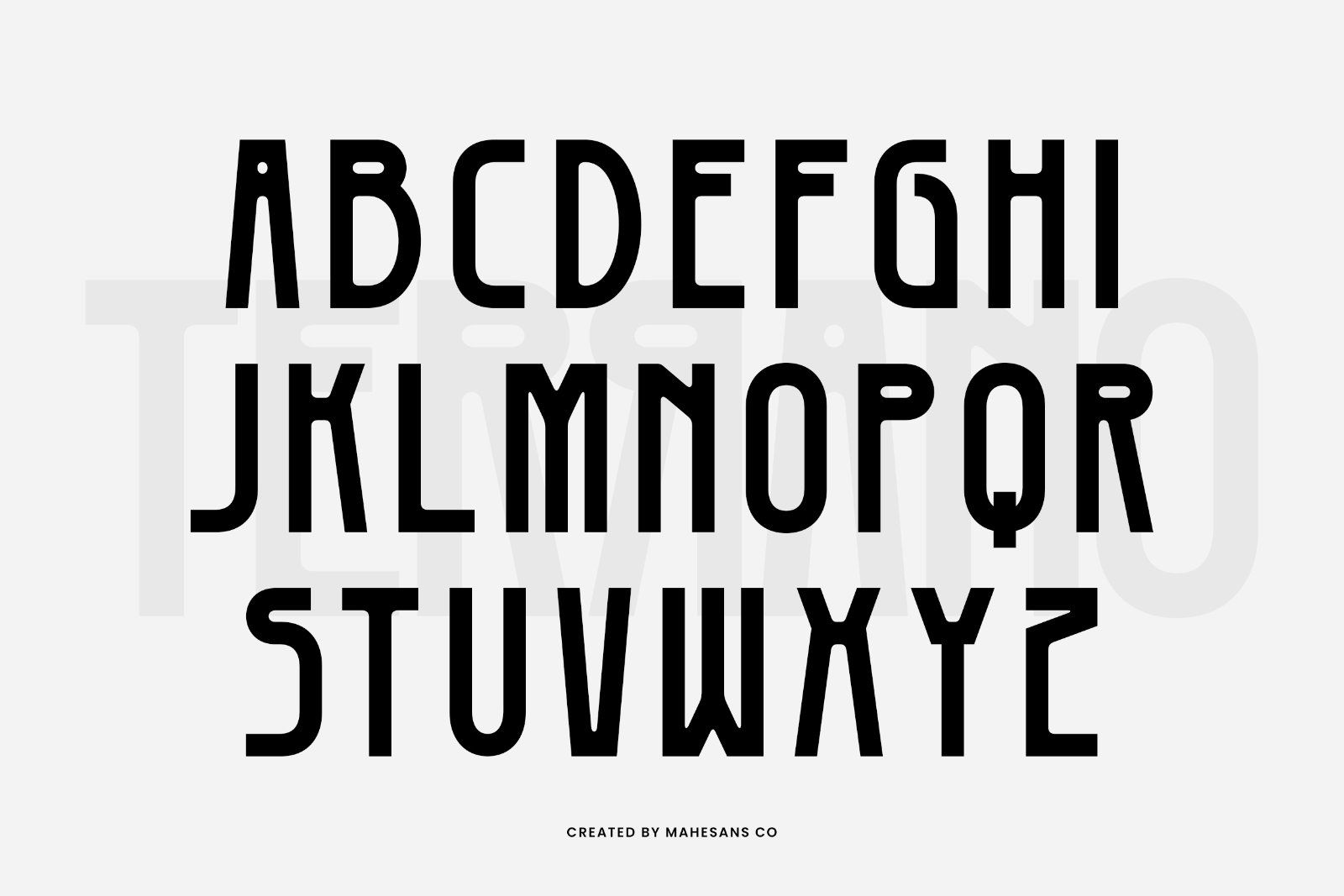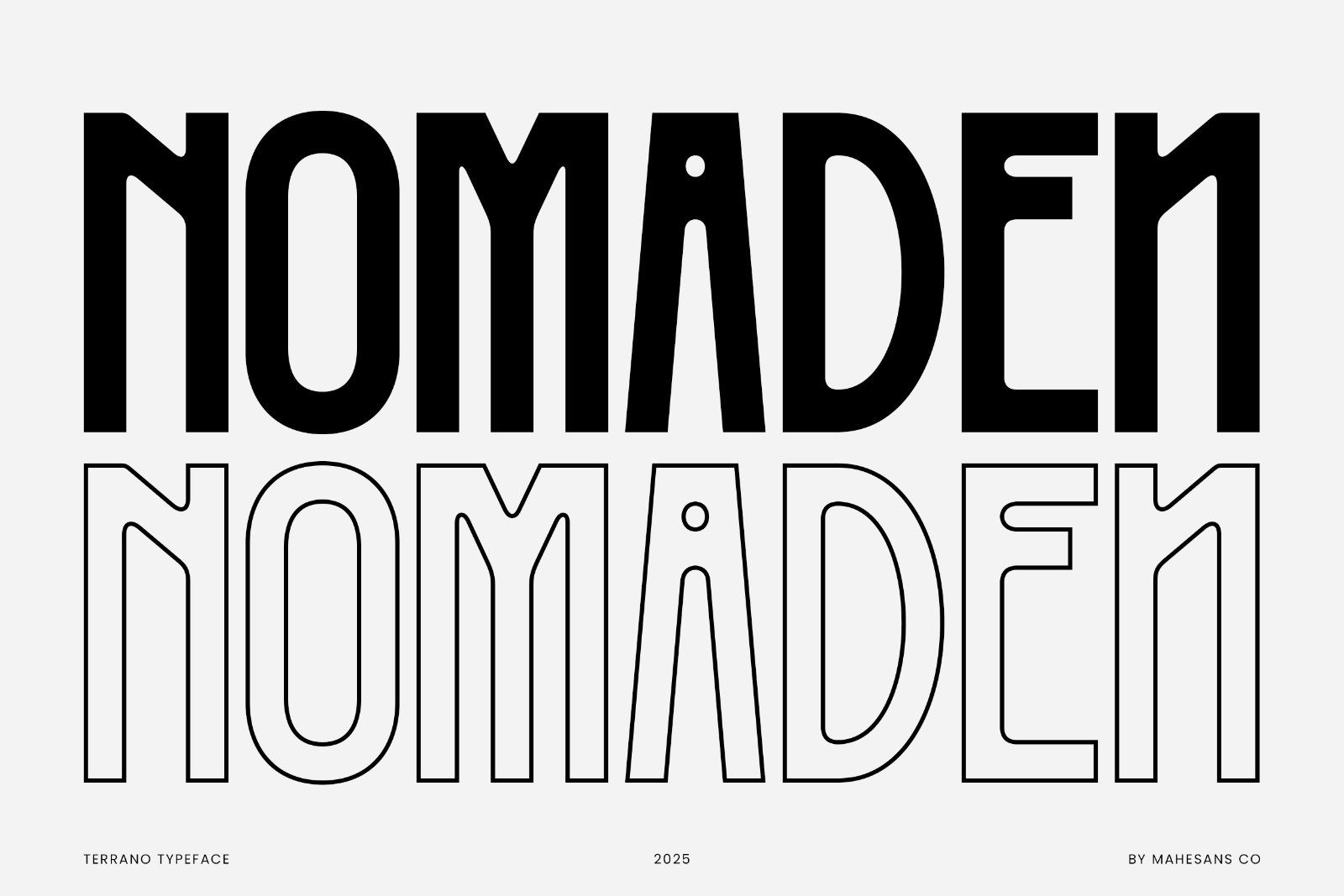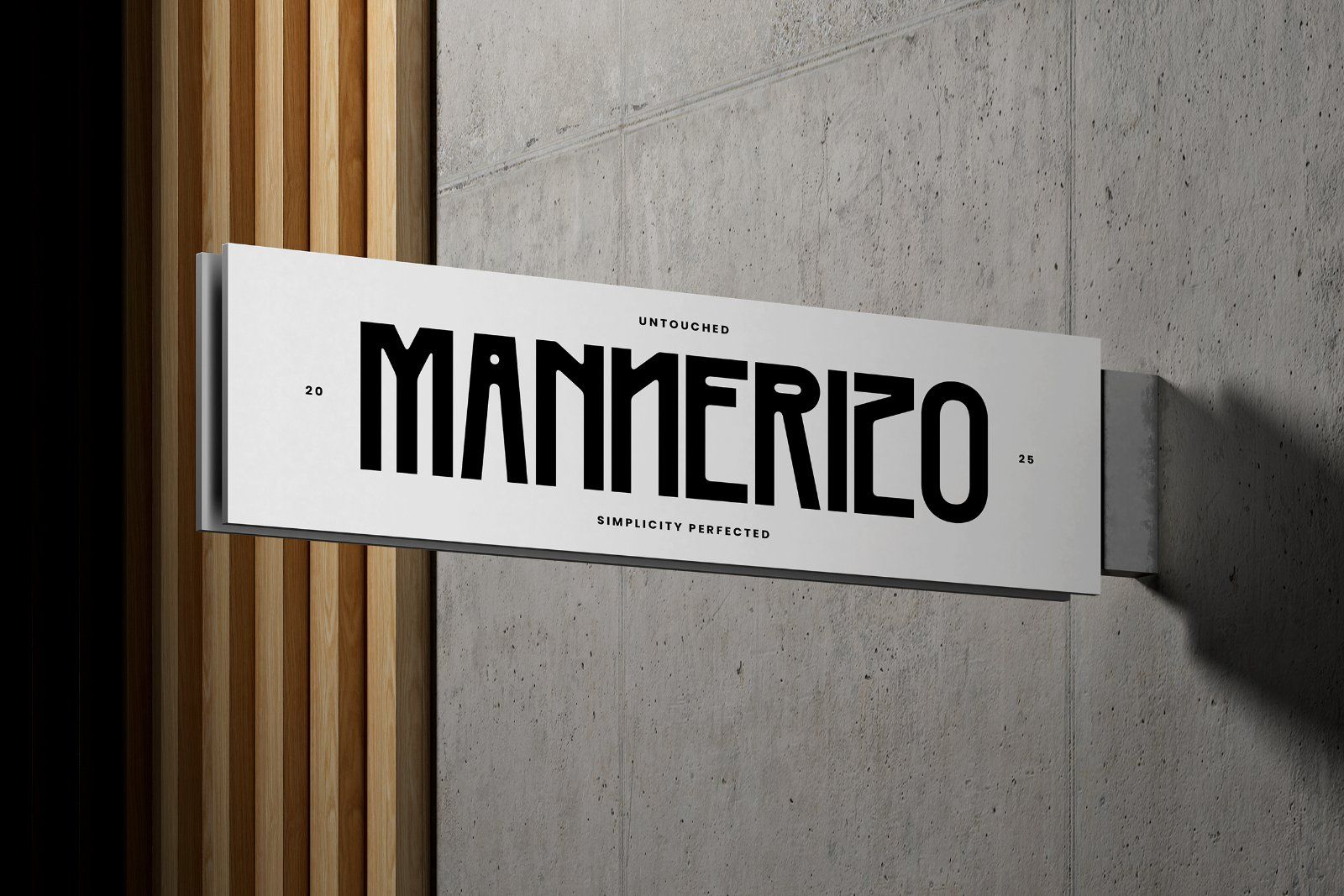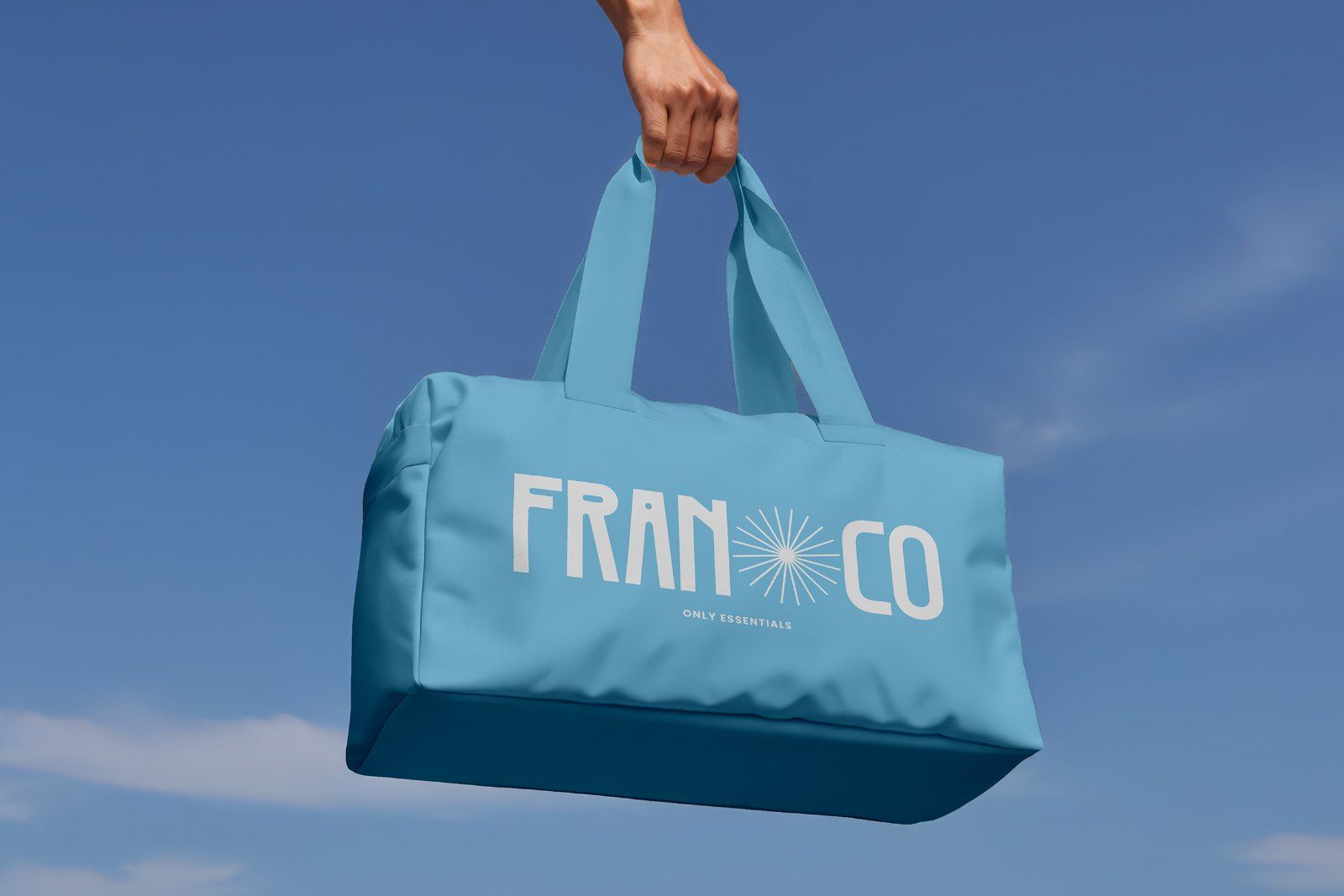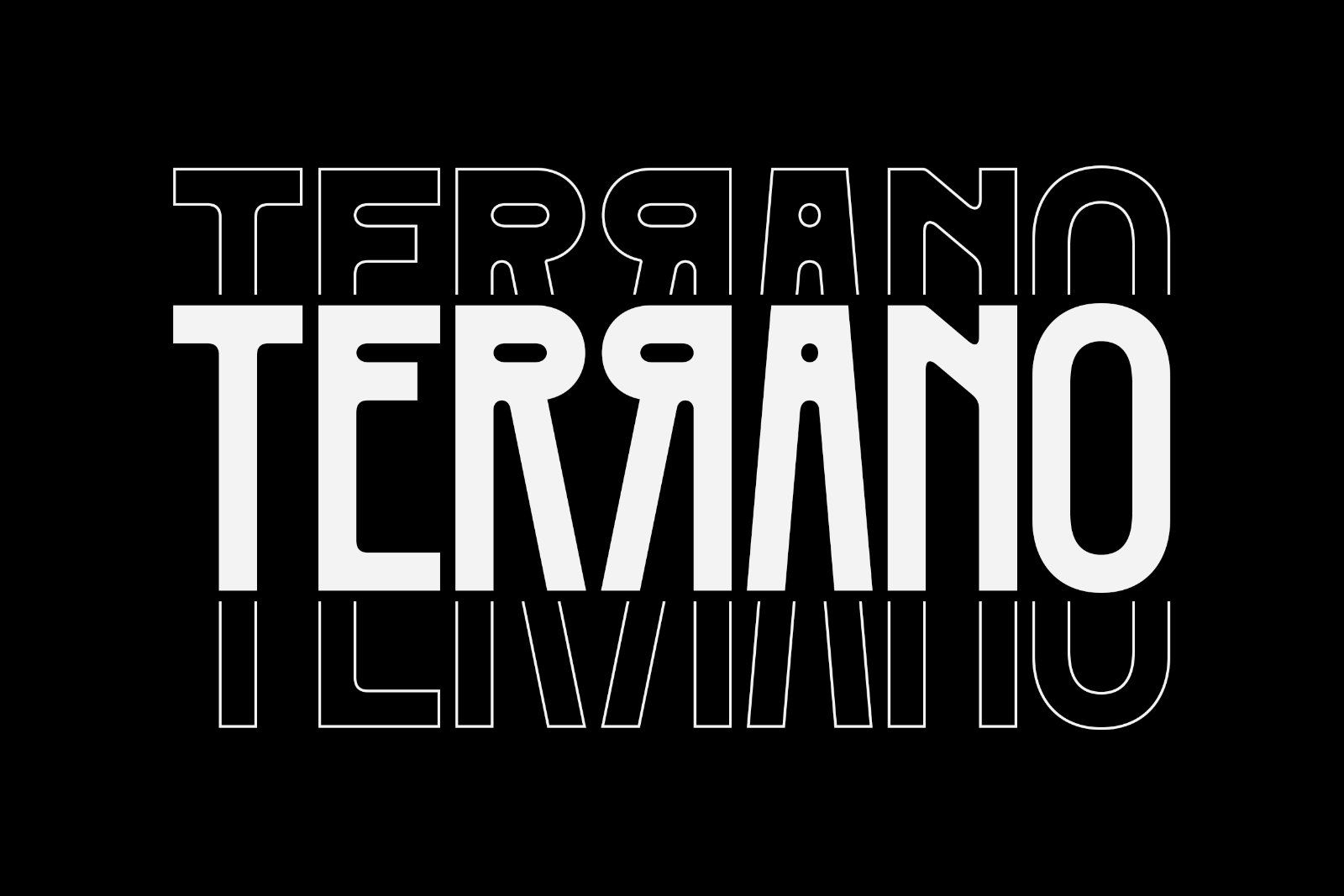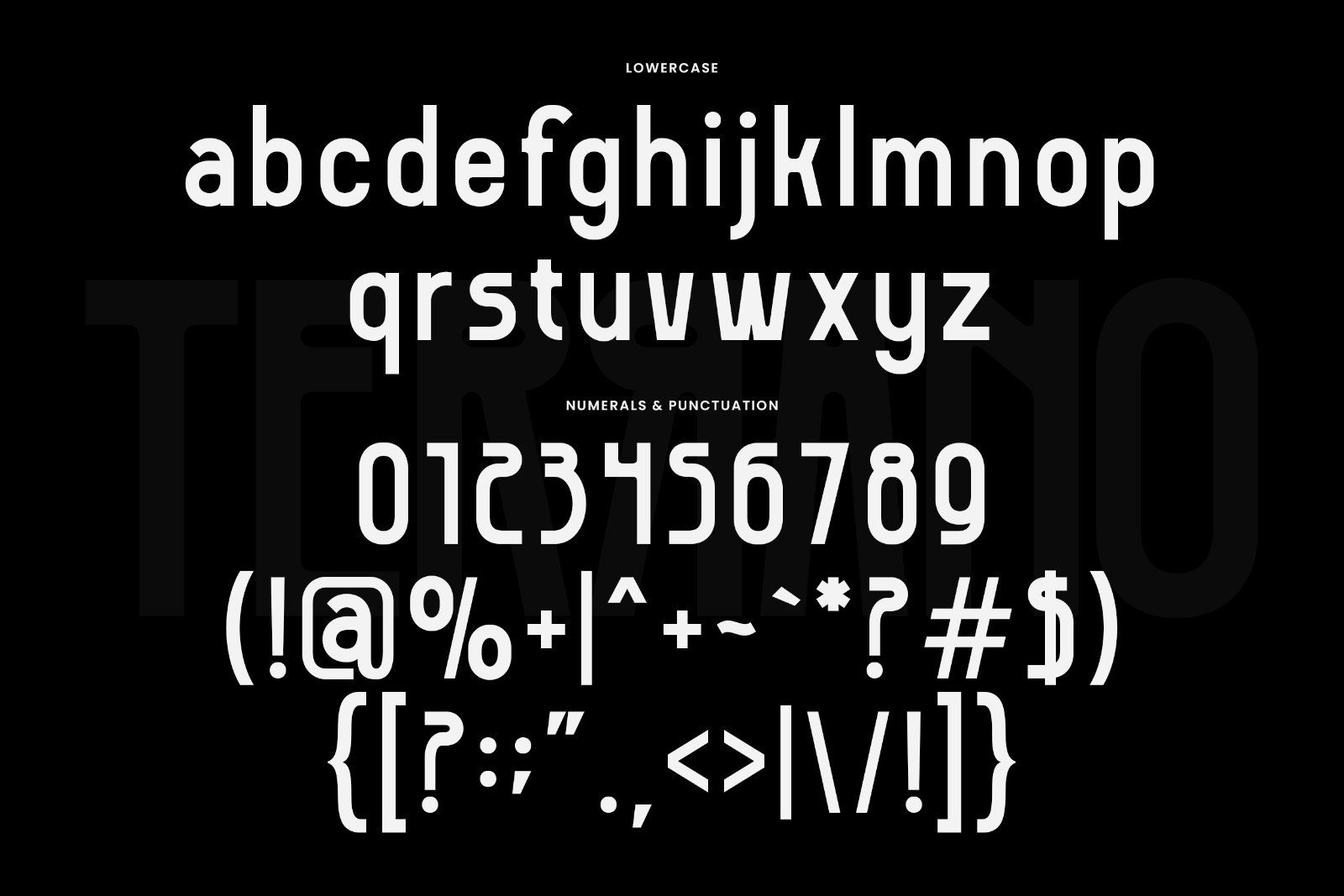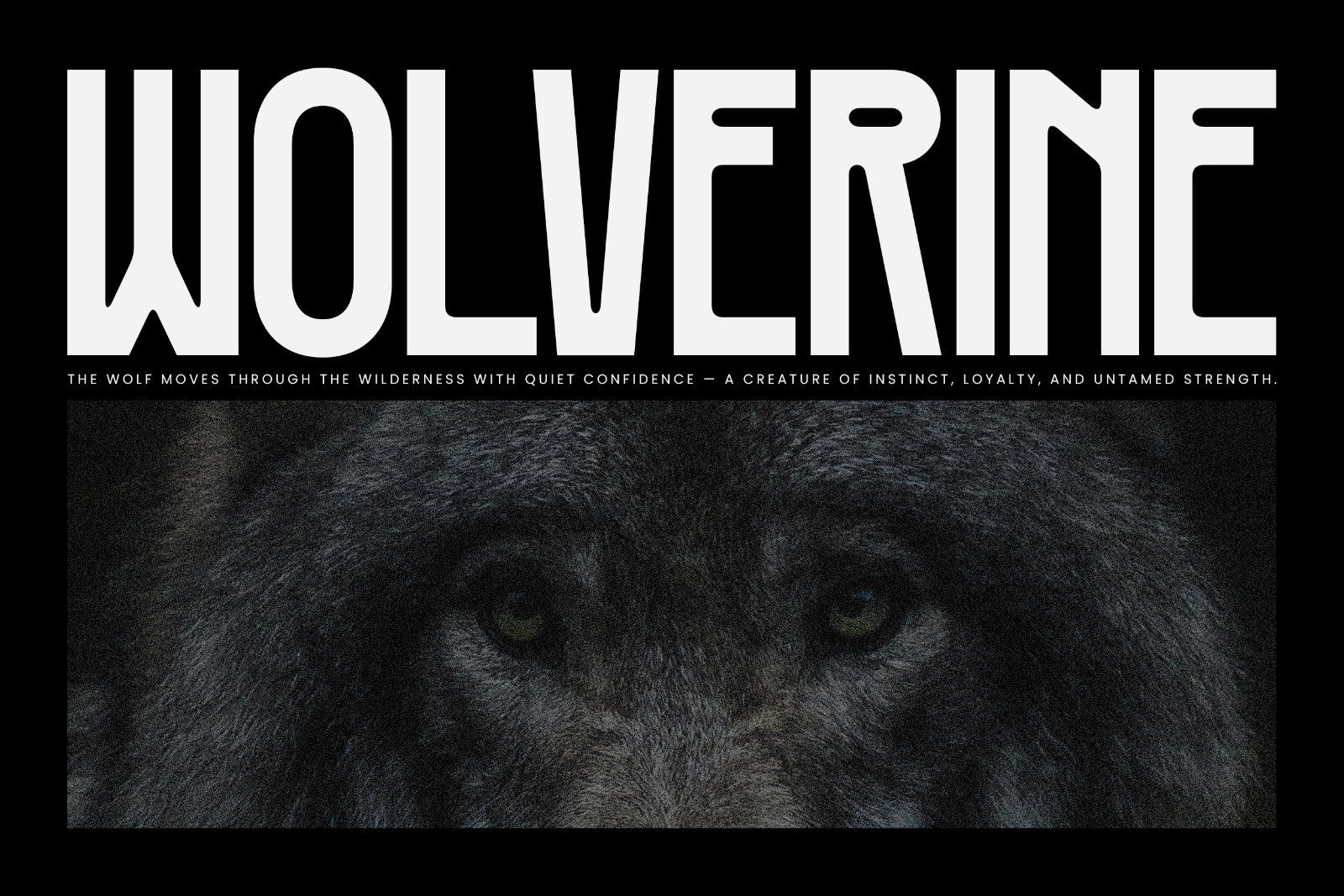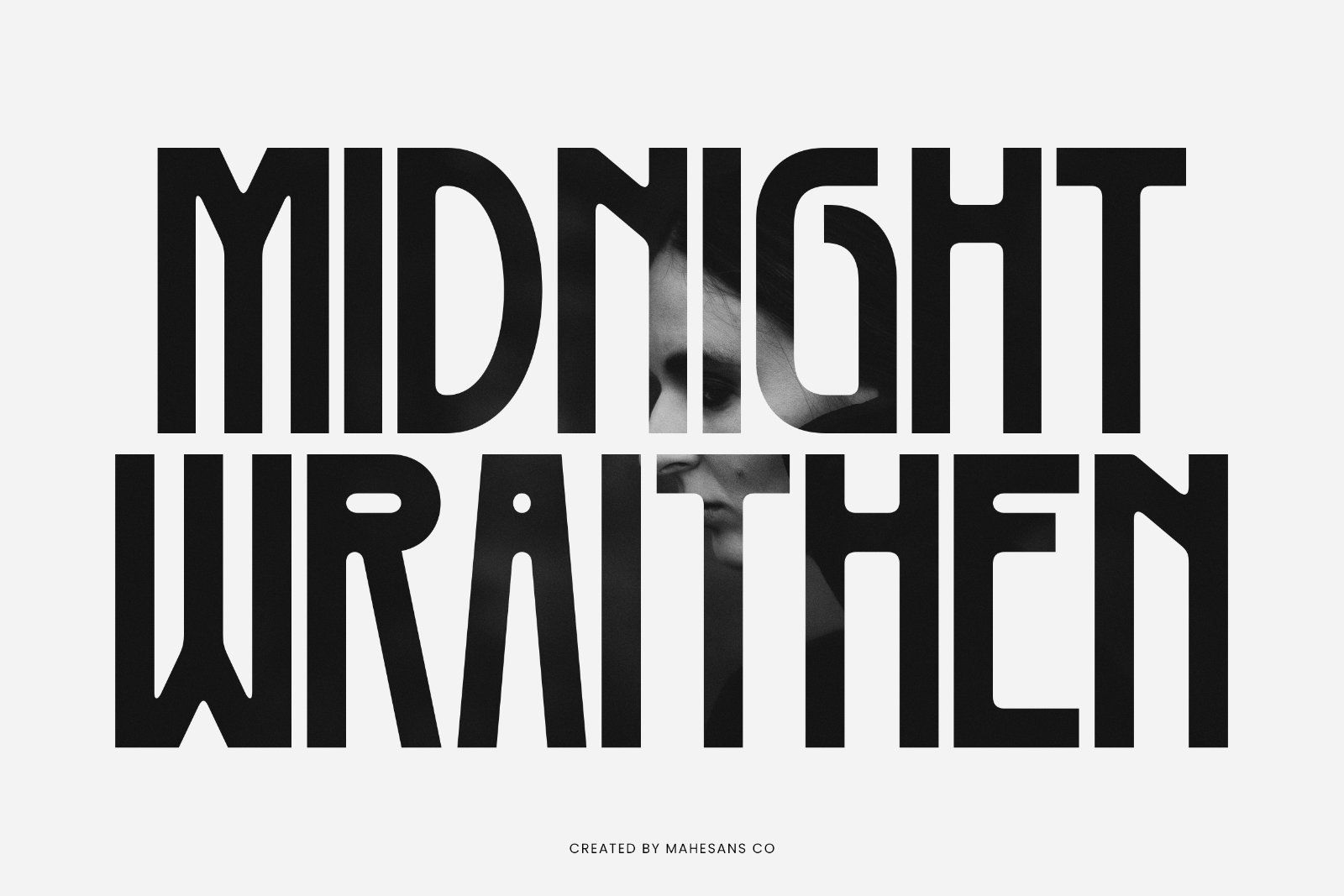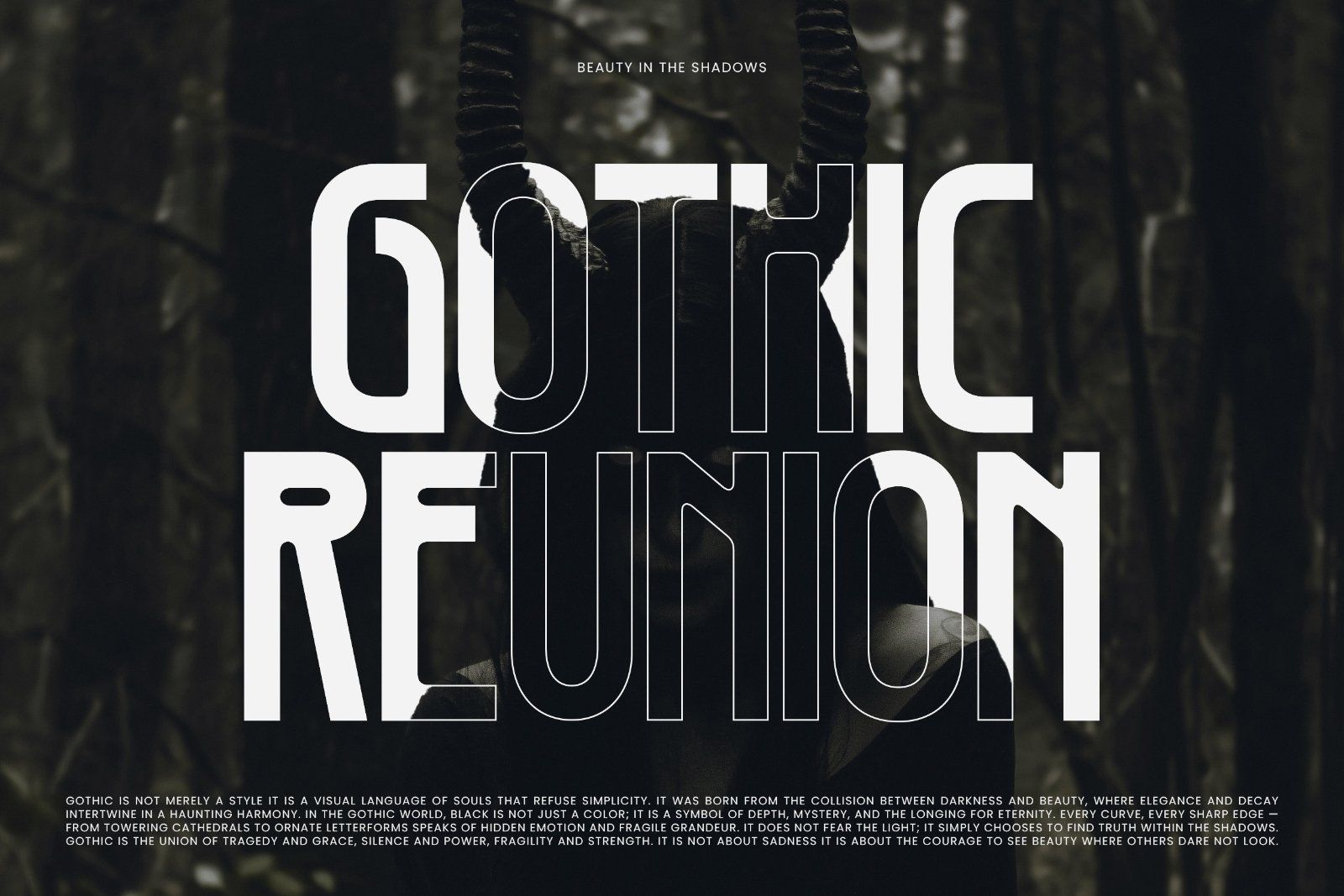
TERRANO is a futuristic display font built with strong modular shapes and elongated forms that instantly command attention. Its industrial-inspired structure and distinctive cuts give it a bold, experimental personality, perfect for brands and projects that refuse to look ordinary.
Designed for high-impact visuals, TERRANO works beautifully for posters, album covers, logos, apparel, esport identity, UI headlines, and any creative work that needs a striking, future-forward aesthetic.
This font comes with unique uppercase letters featuring asymmetric details, clean and modern lowercase characters, complete numerals, and a full set of punctuation. The balance between geometric construction and expressive shapes makes TERRANO both eye-catching and highly usable.